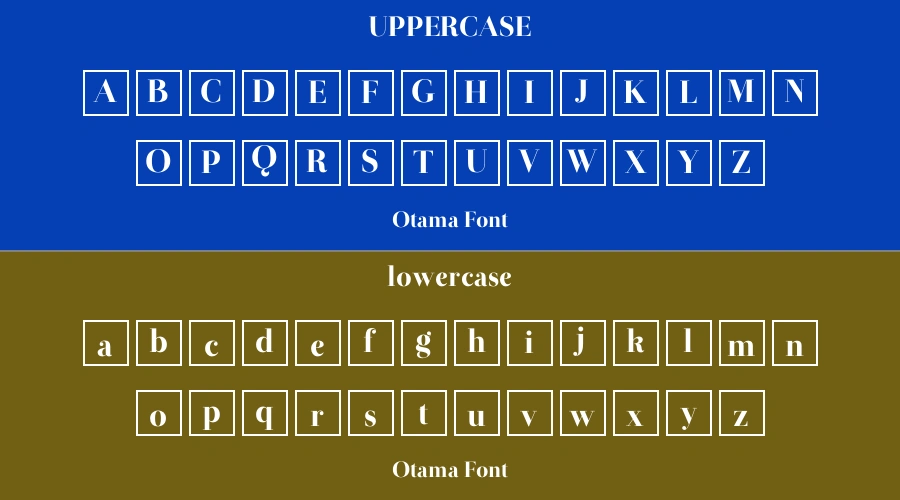
About Otama Font
Otama Font stands out for its distinctive combination of decorative elements and refinement. Ideal for event branding, it provides the functionality and creative impact that professional projects demand. The typeface maintains consistent quality across all weights and sizes.
Key features include refined flowing forms and practical stylistic sets, enhancing typographic expression. In captions applications, Otama Font demonstrates exceptional weight distribution. The terminal style and lifestyle connection contribute to its distinctive character and professional appeal.